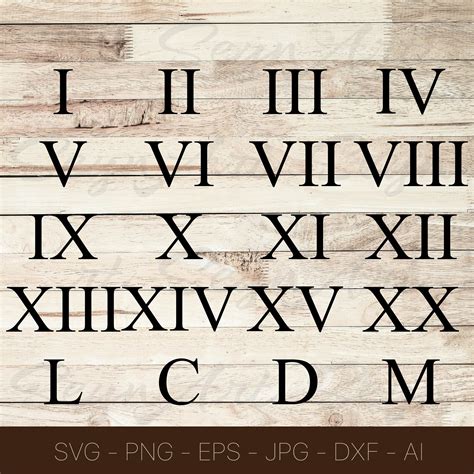
Font For Roman Numerals. Norse à € by jcfonts. When it comes to choosing the best font for roman numerals, bembo is a popular choice.
This font is easily readable and has a classic look. Originating in ancient rome at some point between 900 and 800 bc, roman numerals are the characters that were used in these times to conduct numerical notation. (a) the value of i = 1, value of x is 10 and value of c is 100. Web explore map roman designed by david jonathan ross at adobe fonts. This is not a complete collection, many other fonts on fontspace have fancy numbers in the number digits. When it comes to choosing the best font for roman numerals, baskerville is a popular option. 222,439 downloads (51 yesterday) free for personal use. Web roman numerals embroidery font instant download 30 numerals + 4 letters+1dot 3 sizes no bx file This is what lack of group content does to a mf. Greek house symbolized by greekhouse of fonts. Web free roman numerals fonts (.ttf &.otf).